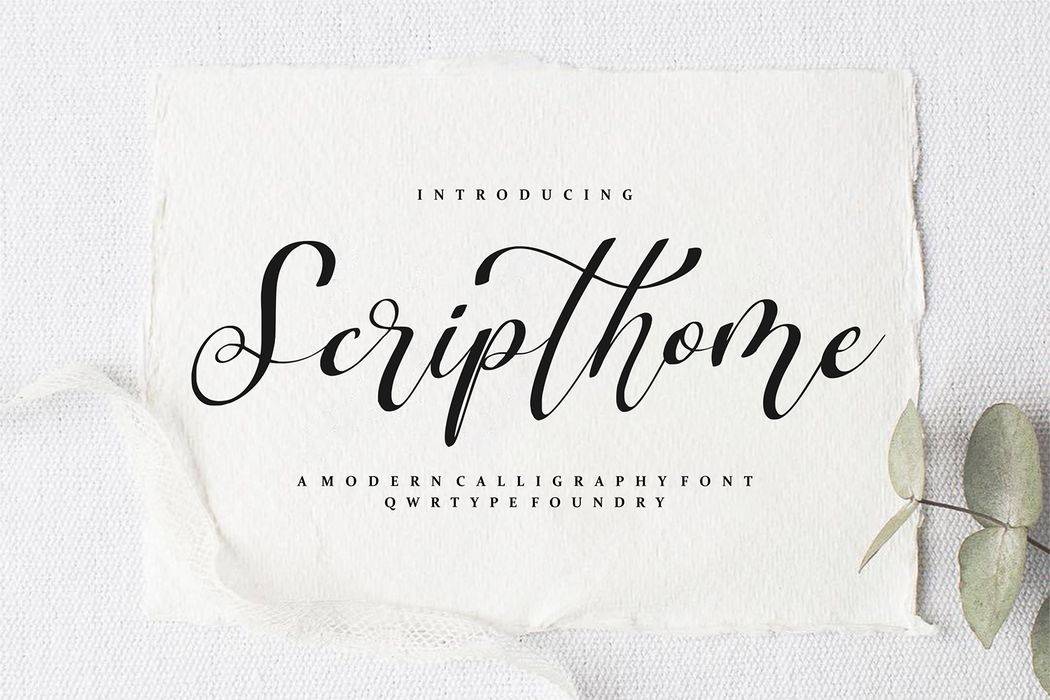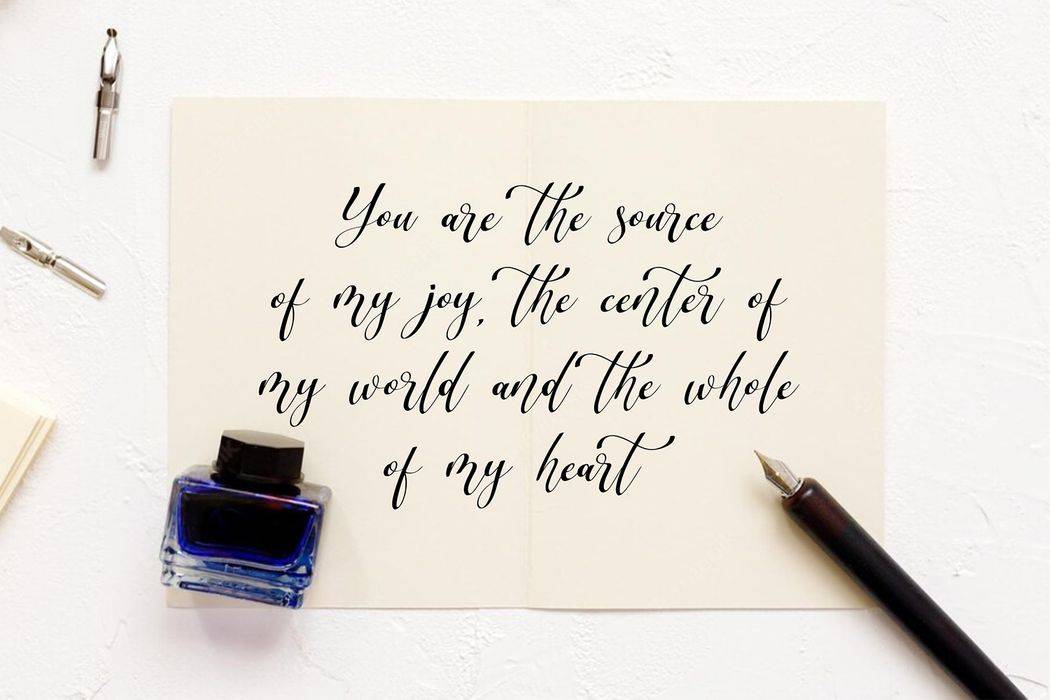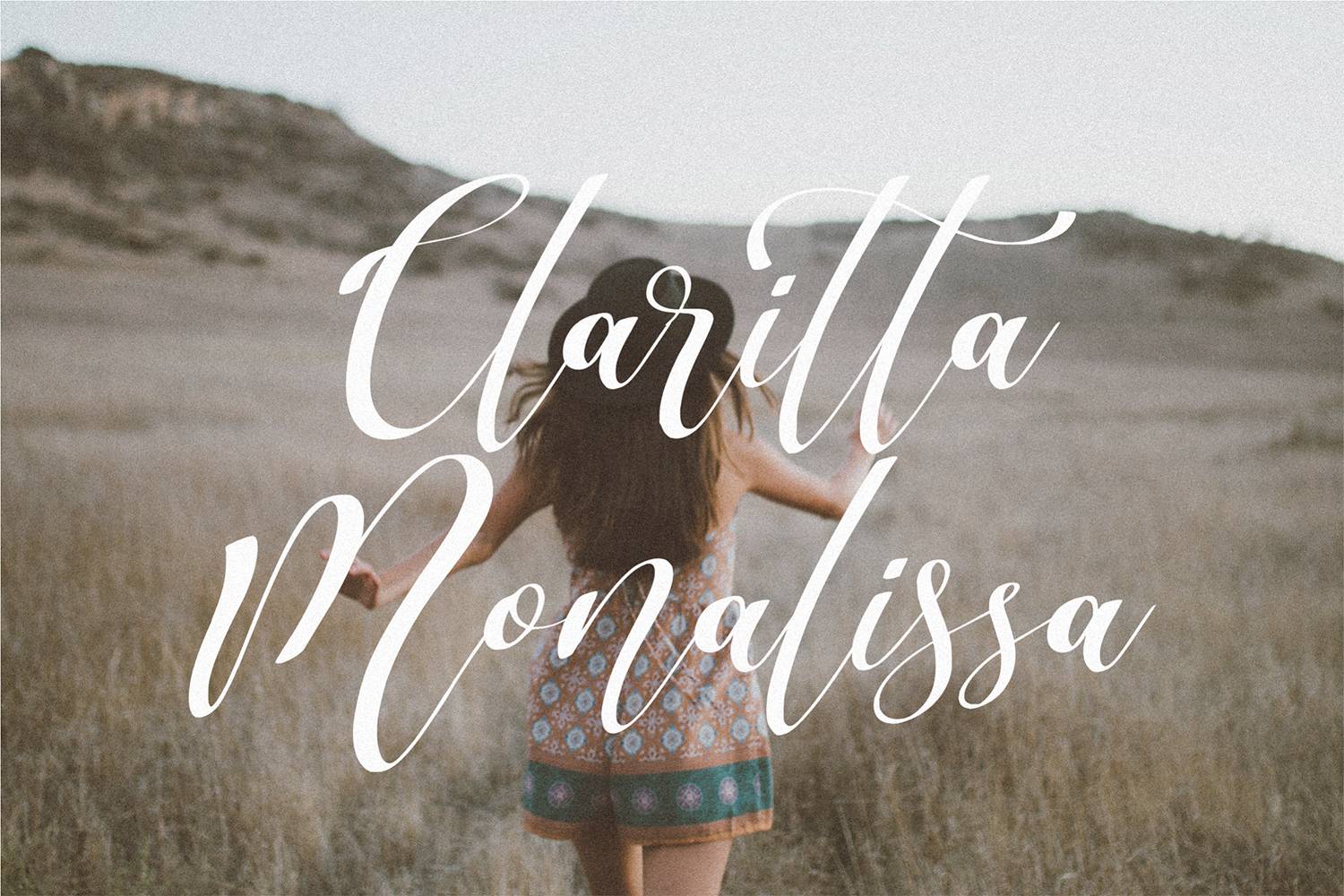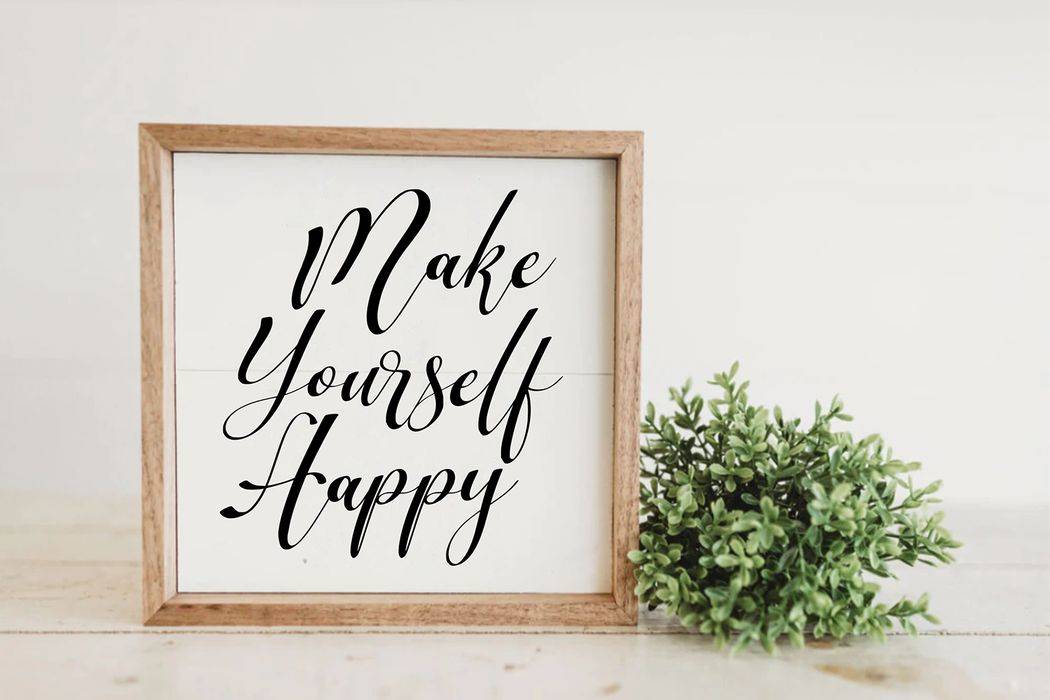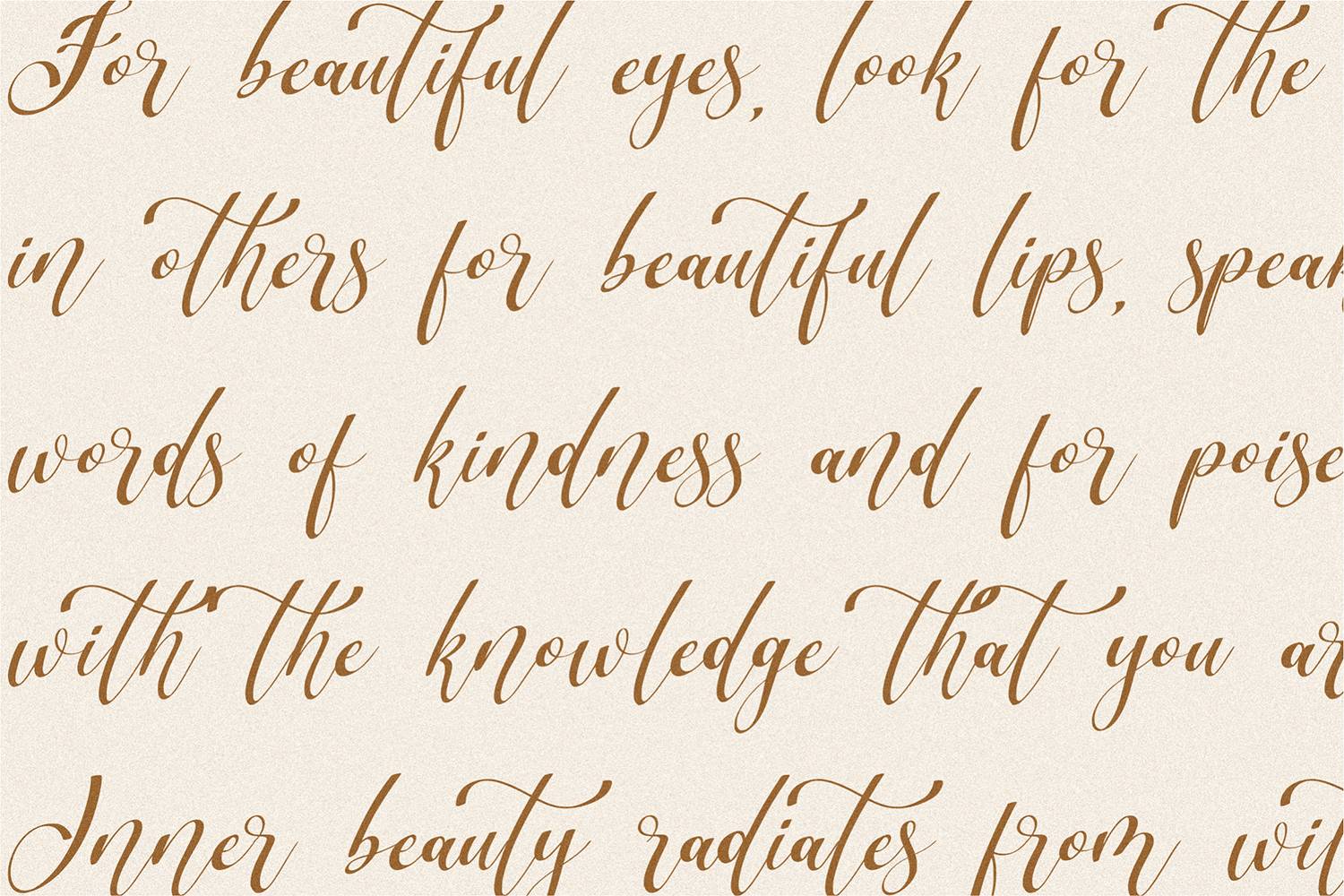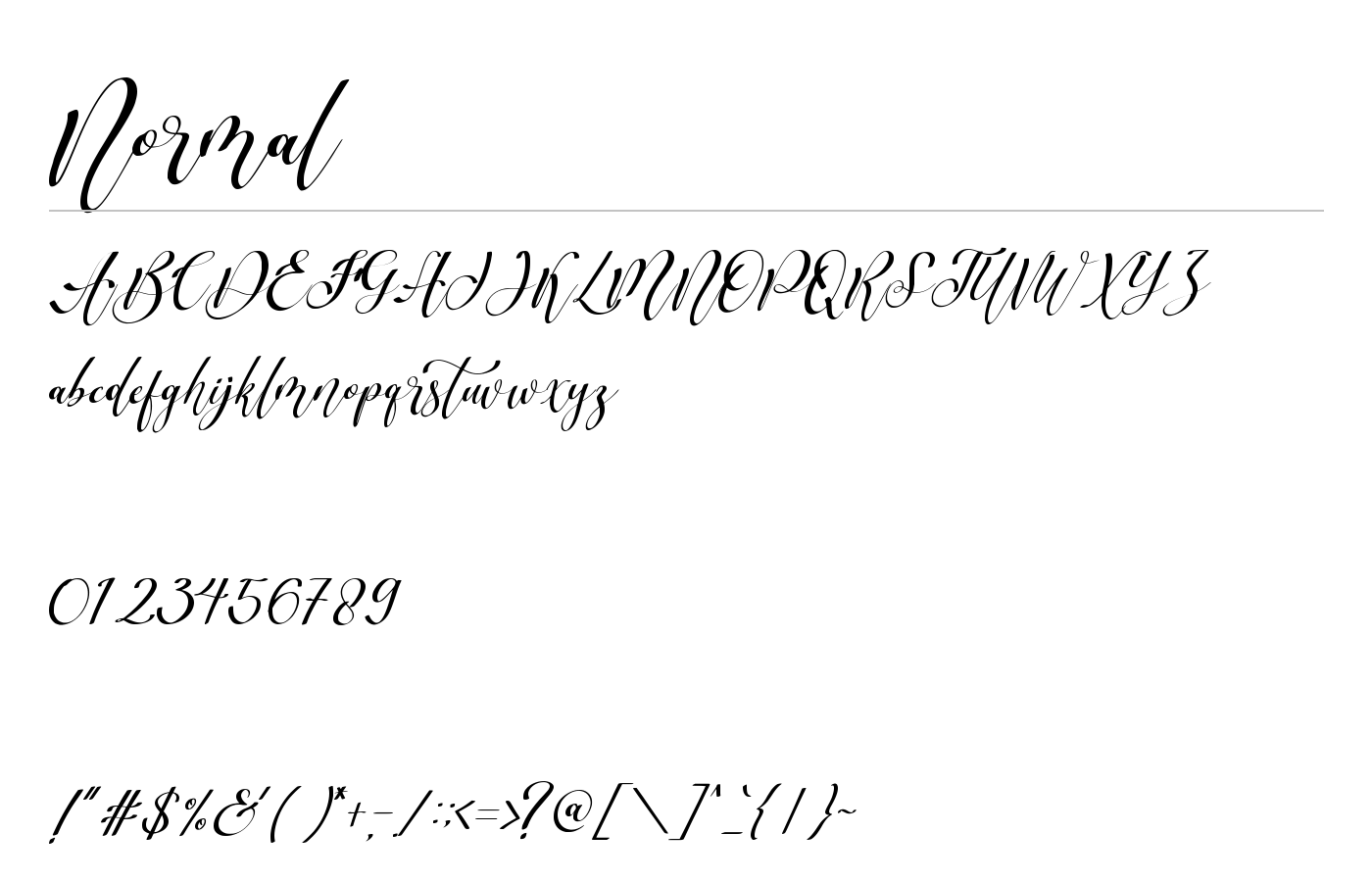
Scripthome is an elegant, flowing script font characterized by its delicate, high-contrast strokes and graceful, calligraphic letterforms. With its elegant swashes and refined curves, it brings a sophisticated, artistic feel suited for luxury branding, invitations, and stylish headlines. This font works best where a personal, handwritten touch is desired, adding a sense of warmth and refinement.
Scripthome Font
About Scripthome Font
| Font family | Scripthome Font |